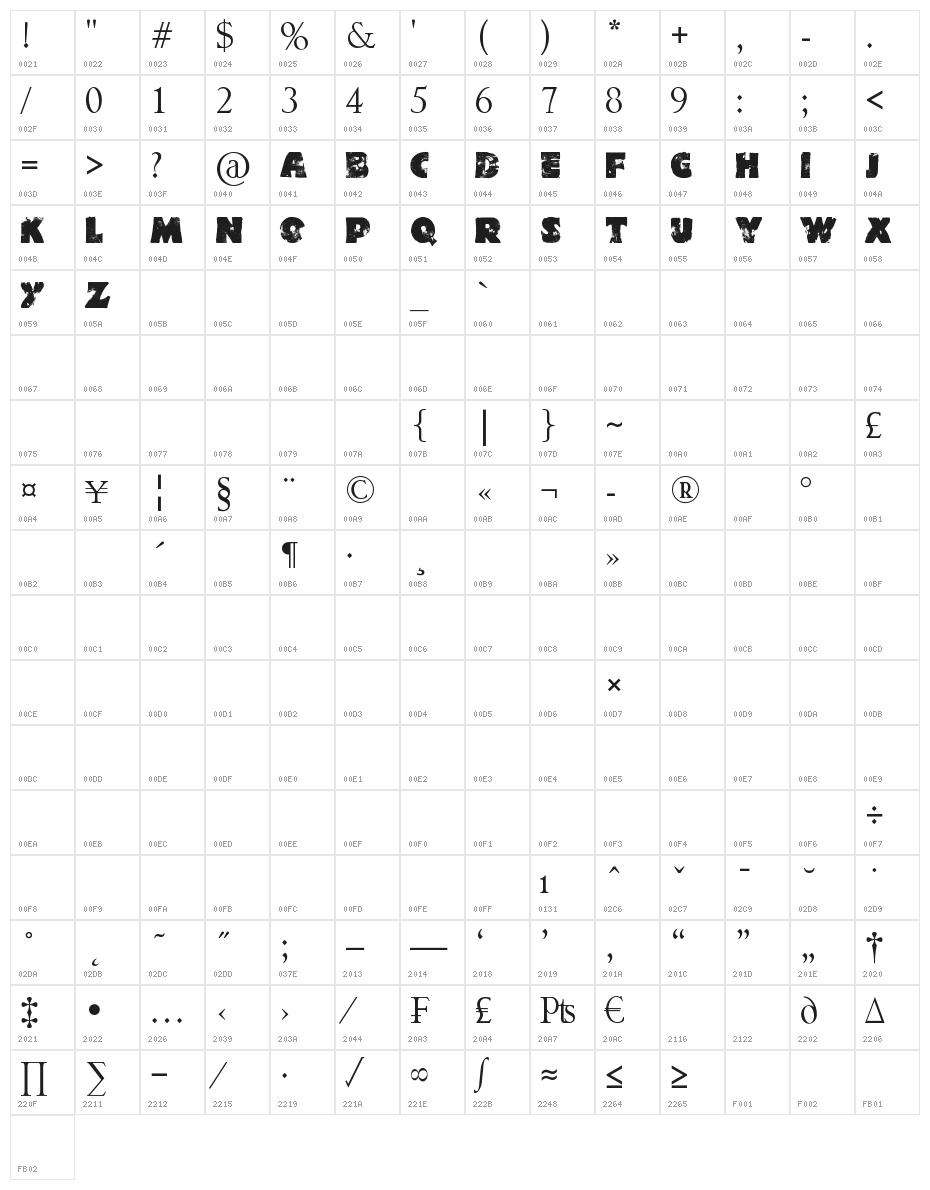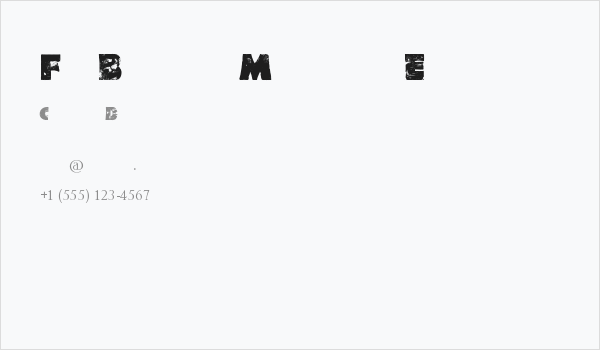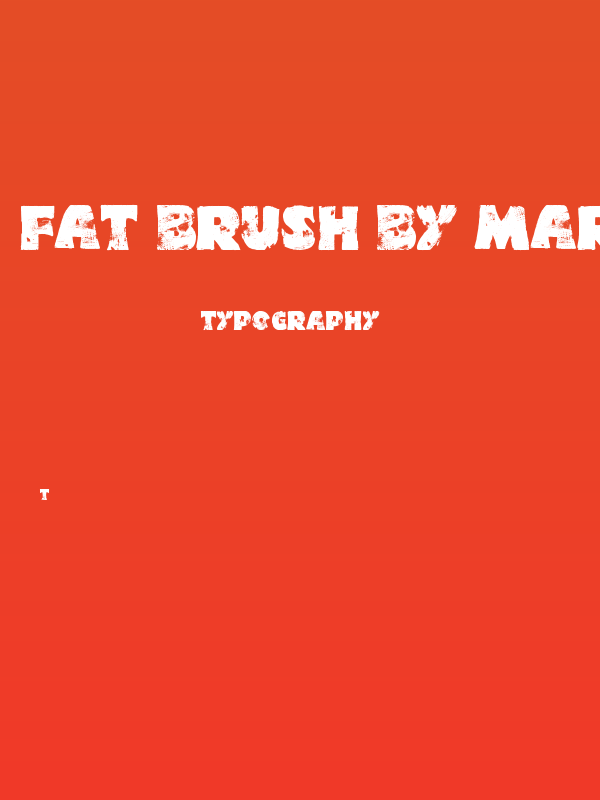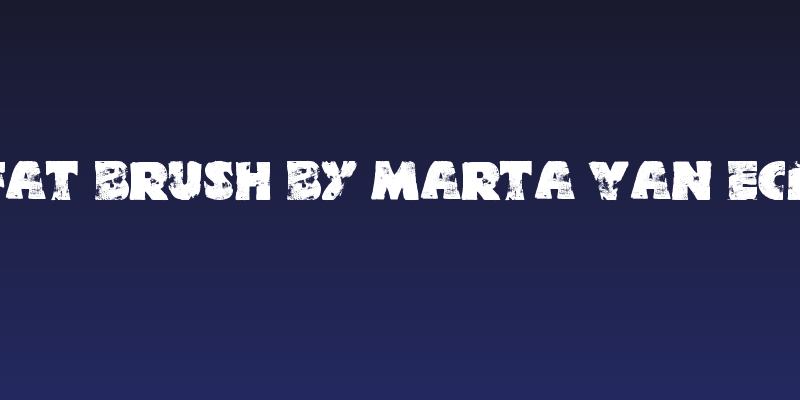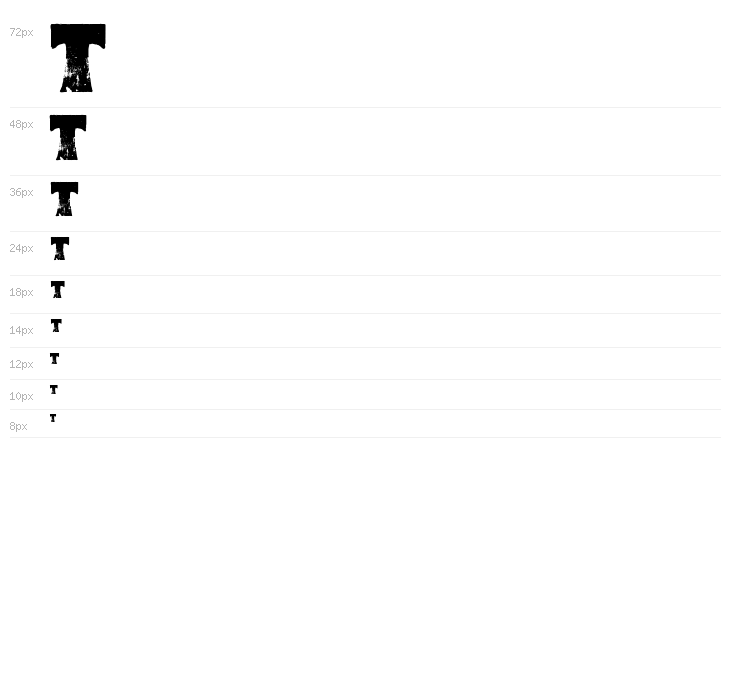
Fat Brush by Marta van Eck Font
Fat Brush by Marta van Eck Description
This font features a bold, distressed style with a brush-like texture, giving it a rugged and artistic appearance. The uppercase letters are heavily textured, creating a sense of movement and energy. The numbers and special characters are presented in a clean, serif style, contrasting with the uppercase letters. This combination of styles makes it versatile for various design projects. The font's unique texture and boldness make it stand out, ideal for projects that require a strong visual impact.
| Proposed Projects | Ideal for posters, album covers, branding, and any project needing a bold, artistic touch. |